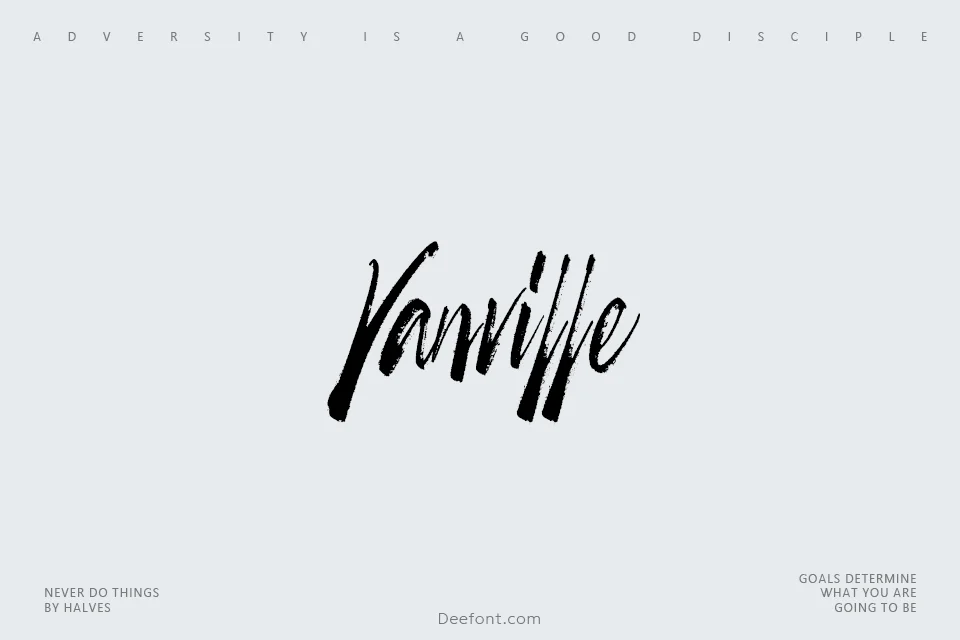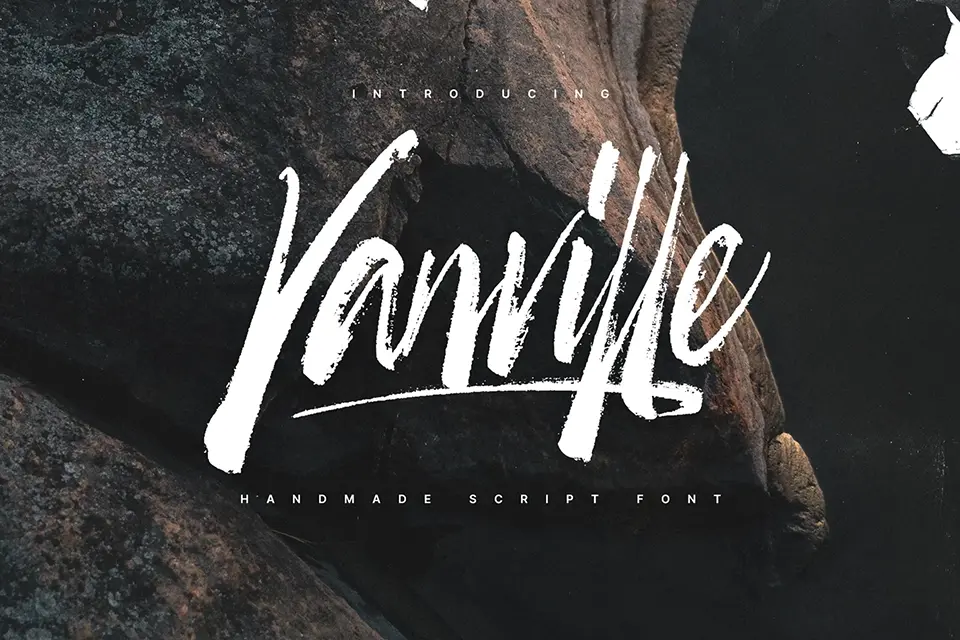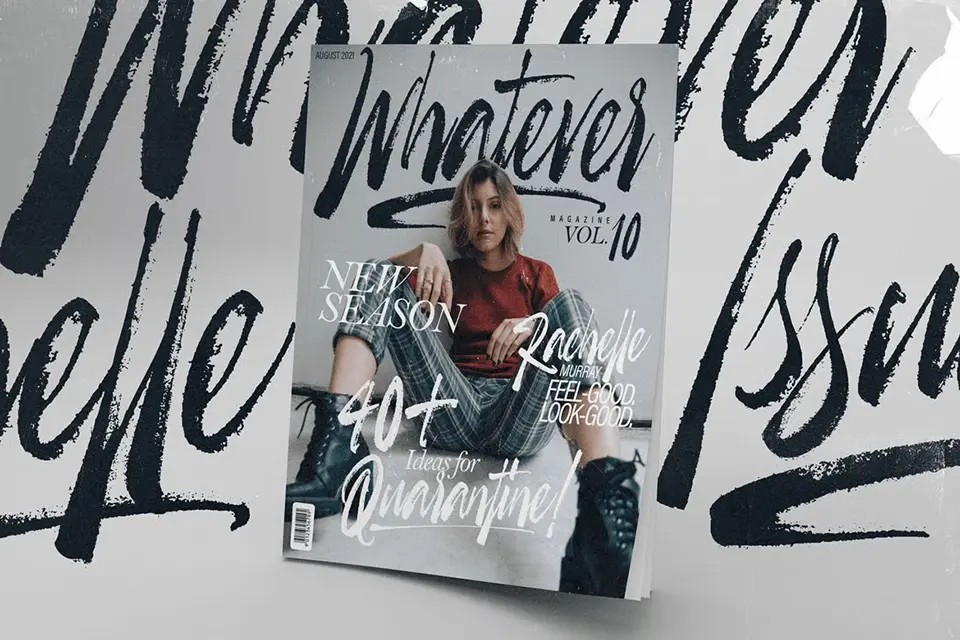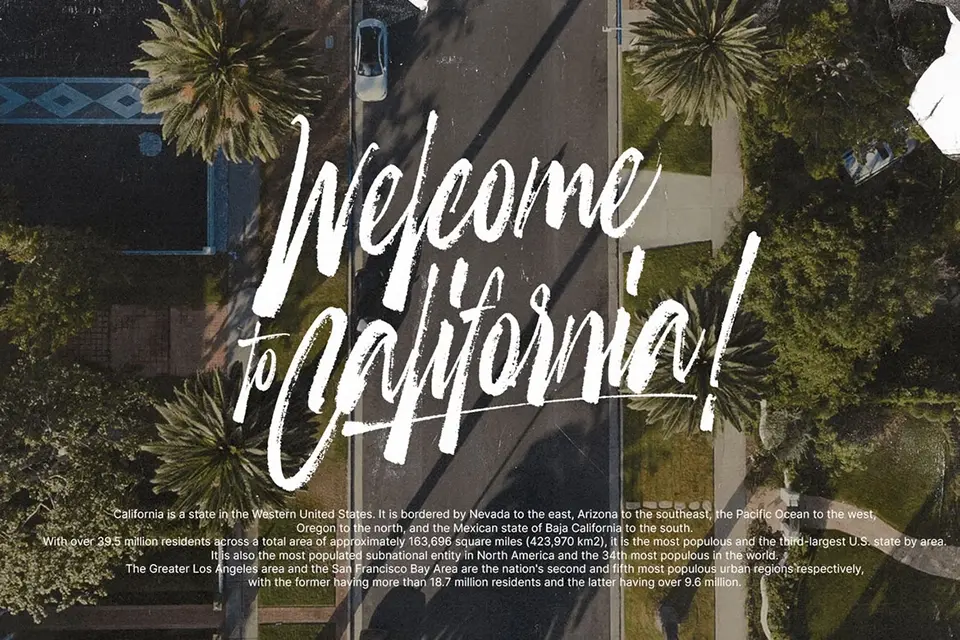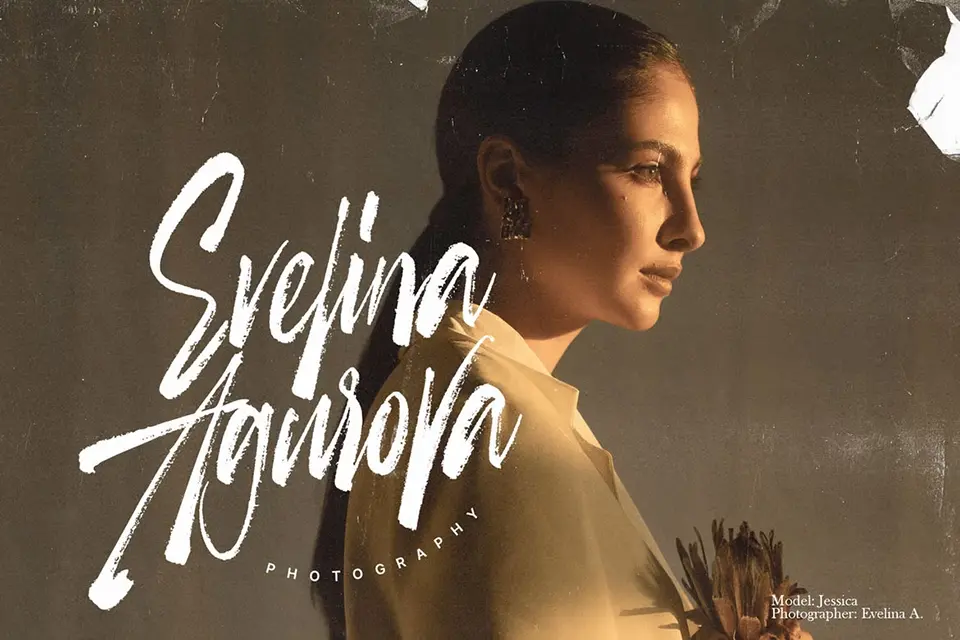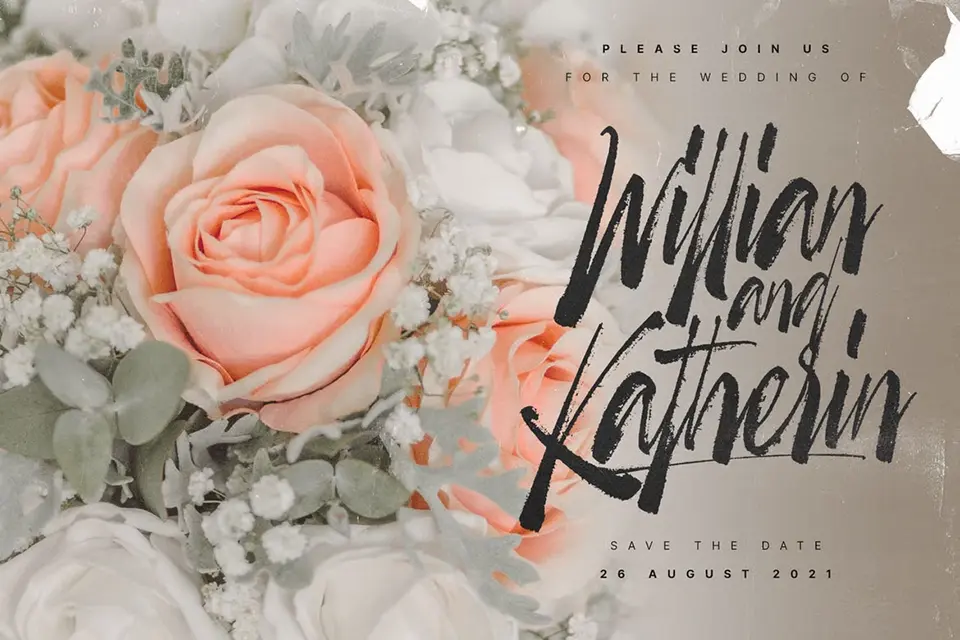
Vanville Font
Vanville is an elegant brush script font featuring artistic handwritten-style letterforms. This typeface combines bold and thin strokes with an irregular baseline, delivering expressive textured characters perfect for personal branding, logos, headers, and creative projects. The semi-light condensed design creates a modern aesthetic suitable for elegant typography applications.